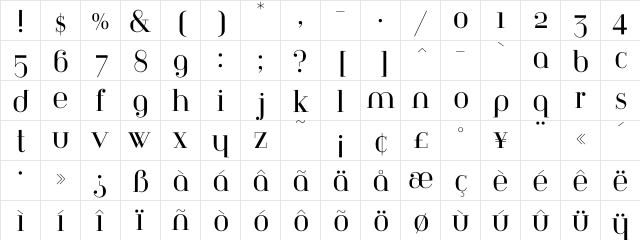
Bayer TypeArchiType Font Preview
Bayer TypeArchiType
Bayer TypeArchiType Font Details
Design Context for Bayer Typeface
Bayer takes a measured approach to typography — its balanced proportions and neutral character make it a reliable workhorse for both digital and print work.
Pro Tip: Pair Bayer with a font of contrasting weight or personality to build a more expressive typographic hierarchy.